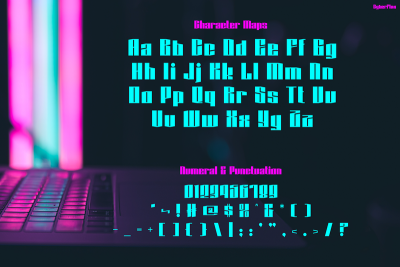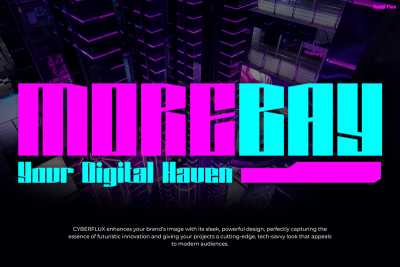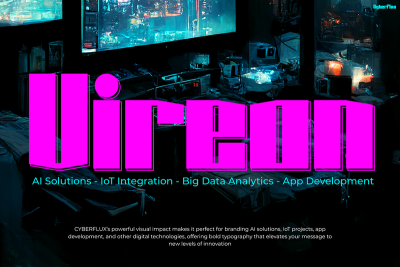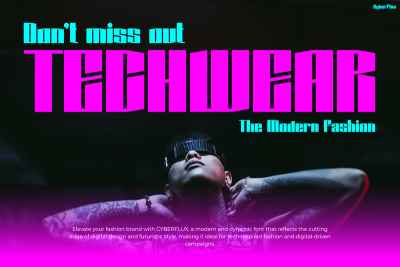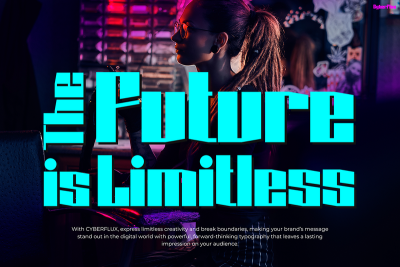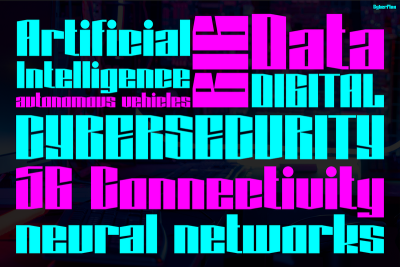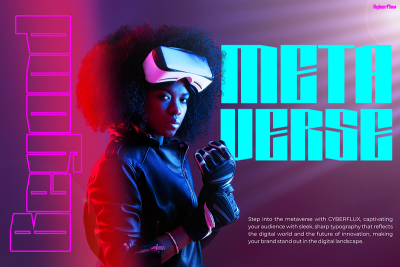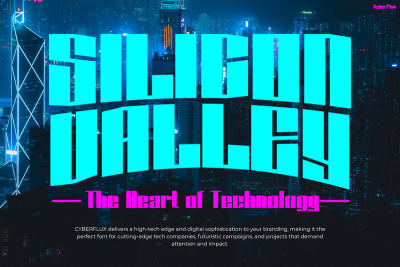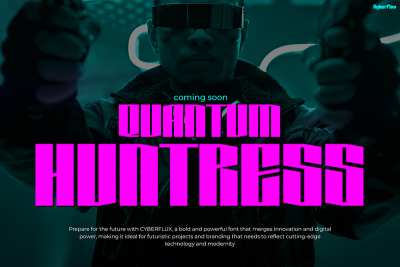
Futuristic Font Cyberflux instantly gives your design a bold, digital identity. Its sharp cuts, modular shapes, and sleek angles scream sci-fi sophistication. As soon as you use it, your visuals feel like they belong in the future. With a layout that balances tech precision and creative flair, this font doesnโt just look differentโit makes your brand feel different.
Moreover, Cyberflux offers more than style. Its geometric consistency and modern alignment ensure high readability while delivering strong impact. Whether youโre designing for screens, prints, posters, or packaging, the font holds up in all formats. In fact, its clean lines and dramatic structure make it a go-to choice for futuristic branding.
Thanks to its cyberpunk aesthetic, Cyberflux is especially effective in themes related to virtual worlds, digital fashion, and cutting-edge tech. Paired with neon or metallic palettes, the font creates visual intensity that commands attention. Plus, its bold personality helps you build a brand that feels ahead of its time. Consequently, Cyberflux becomes a go-to choice for designers who want a typeface that feels edgy, relevant, and unmistakably modern.
Who Is Futuristic Font Cyberflux For?
Cyberflux is ideal for designers, digital artists, and forward-thinking brands. For example, fashion labels looking to explore techwear themes will benefit from its edgy vibe. Likewise, gaming creators, VR developers, and NFT artists will find its style perfectly suited to immersive, digital-first environments.
In addition, marketing teams and content creators can use Cyberflux to give campaigns a high-tech, standout look. Whether you’re running a futuristic product launch, a cyber-themed event, or a digital fashion drop, this font helps you make it unforgettable.
Even startup founders can use Cyberflux to create bold visual identities that challenge the ordinary and spark curiosity.